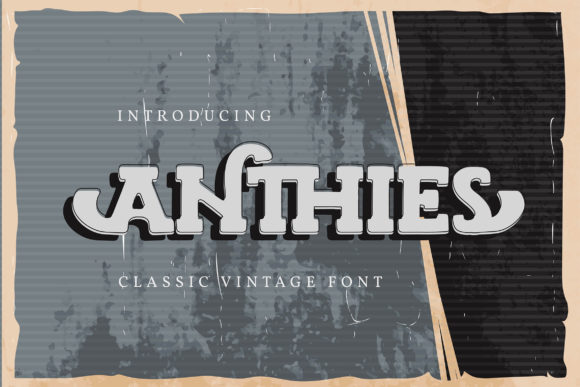
Embark on a Typographic Voyage with Anthies: A Font That Evokes Elegance and Strength!
In the realm of fonts, Anthies stands alone as a beacon of boldness, vintage charm, and unwavering strength. This captivating display font, crafted by the visionary Vunira, is a testament to the enduring power of typography, capable of transforming your creative endeavors into mesmerizing works of art.
Indulge in the majesty of Anthies, where each letter is a carefully chiseled masterpiece, exuding a sense of timelessness that transcends the boundaries of fleeting trends. Its thick, robust strokes command attention, while its vintage flair lends a touch of nostalgia that resonates with the soul.
With Anthies as your typographic companion, you'll find endless opportunities to unleash your creativity and leave an indelible mark on the world. Picture your words dancing across book covers, demanding attention on posters, or captivating audiences in presentations, all adorned with the undeniable charisma of Anthies.
From the stately elegance of letterheads to the captivating allure of titles, Anthies effortlessly elevates your creations to new heights of sophistication. Its versatility knows no bounds, adapting seamlessly to a vast array of projects, from wedding invitations that whisper romance to business cards that exude professionalism.
Embrace the transformative power of Anthies and watch as your designs blossom into visual symphonies. Its ability to effortlessly blend boldness and grace will leave an unforgettable impression, ensuring that your messages are not merely read, but experienced.
Anthies is more than just a font; it's an evocative storyteller, a visual maestro that weaves tales of strength, resilience, and timeless beauty. It's an invitation to embark on a typographic voyage where your imagination sets sail, and your creativity knows no bounds.